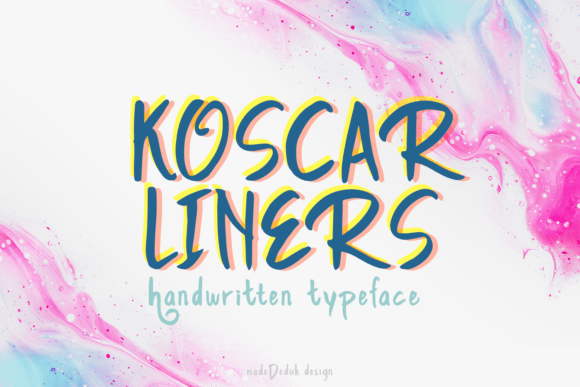
Welcome to the world of Koscar Liners, a remarkable script font family that captures the essence of authenticity and sophistication. Immerse yourself in the allure of this font style, meticulously designed to evoke the charm of handwritten signatures, and unlock a realm of creative possibilities.
With Koscar Liners, your designs will transcend the ordinary and embrace a touch of genuine artistry. Its flowing lines and elegant curves emulate the beauty of hand-lettering, imbuing your projects with a sense of intimacy and personalization. Whether you're crafting a heartfelt message, designing a captivating logo, or creating a stunning product label, Koscar Liners is your ultimate choice for making a lasting impression.
Discover the versatility of Koscar Liners and unleash your creativity across a myriad of projects. From the delicate strokes of an invitation to the bold presence of a poster, Koscar Liners adapts seamlessly, adding a touch of uniqueness to every concept. Its carefully crafted characters exude a timeless charm, effortlessly complementing both modern and vintage aesthetics.
Step into the realm of versatility and let Koscar Liners elevate your designs to new heights. Its natural and authentic style seamlessly blends with various themes and styles, making it the perfect companion for any creative endeavor. Embrace the boundless possibilities of Koscar Liners and watch your projects come alive with a touch of elegance and authenticity.
With Koscar Liners, you hold the power to transform ordinary designs into captivating masterpieces. Its captivating charm effortlessly draws attention, leaving a lasting impression on your audience. Embrace the beauty of handwritten typography and let Koscar Liners become your trusted ally in creating designs that resonate with authenticity and style.